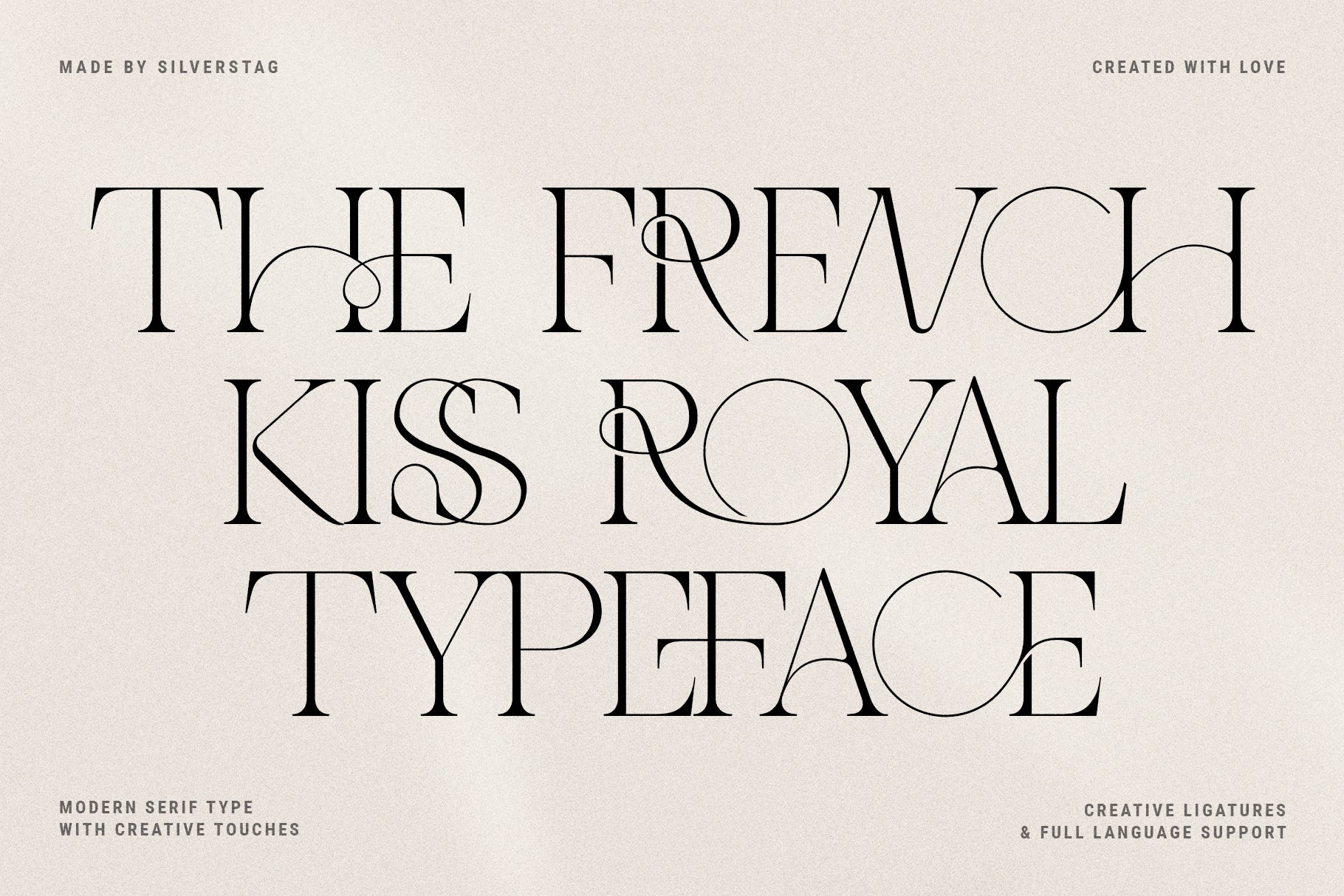
The French Kiss Royal Typeface
The French Kiss Royal Typeface Free Download is ideal for luxury perfume branding, high-end fashion labels, elegant wedding invitations, romantic restaurant menus, boutique hotel signage, premium chocolate packaging, sophisticated beauty products, French patisserie logos, and upscale lifestyle magazines. This exquisite typeface adds Parisian elegance and refined romance to any luxurious project.
What makes The French Kiss Royal Typeface so exciting is its captivating fusion of classic French sophistication and regal opulence that evokes timeless romance and luxury. The gracefully crafted letterforms feature delicate serifs, refined curves, and aristocratic proportions that transport viewers to the grand boulevards of Paris. Its enchanting character perfectly captures the essence of haute couture and fine living, while maintaining impeccable readability that ensures your elegant messaging resonates with discerning audiences across premium packaging, editorial spreads, and exclusive brand communications.
The French Kiss Royal Typeface family typically includes Light, Regular, Medium, Bold, and Italic variations, often accompanied by decorative swashes, ornamental caps, and elegant ligatures. These refined elements provide designers with sophisticated tools to create luxurious typographic treatments, establish premium brand identities, and craft unforgettable designs that celebrate beauty, romance, and timeless French elegance.